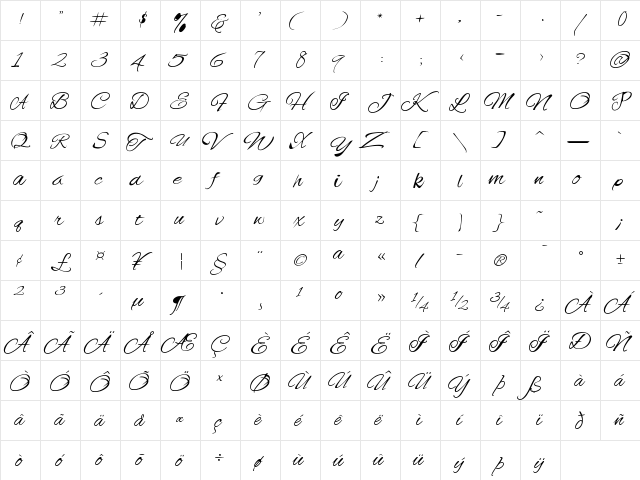
Offingapp Regular
| Foundry | Offingapp |
| Designer | Offingapp |
Design Context for Offingapp Typeface
Offingapp is a composed and adaptable typeface that performs quietly and consistently across a wide range of design contexts.